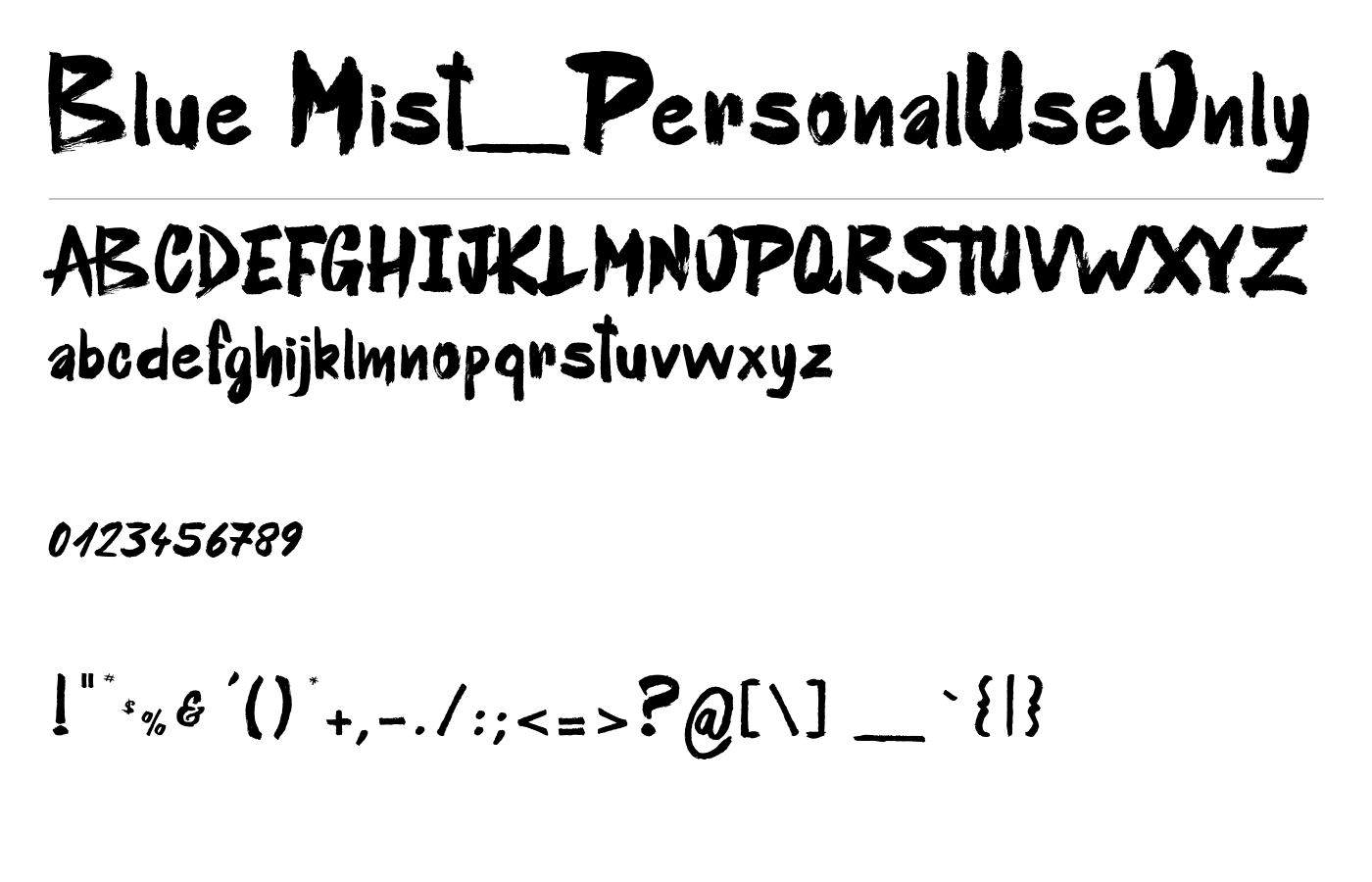
Blue Mist_PersonalUseOnly is a bold, brush-script style font with a hand-painted, textured appearance that brings a lively and informal charm. Its uneven strokes and playful letterforms evoke creativity and spontaneity, making it ideal for artistic, casual, or youthful branding, posters, and headlines that need a distinctive, expressive touch. This font works well where a personal, handcrafted feel is desired, adding character and energy to designs.
Blue Mist_PersonalUseOnly Font
About Blue Mist_PersonalUseOnly Font
| Font family | Blue Mist_PersonalUseOnly Font |
| Designer | Gregory Medina ©dcodesign |